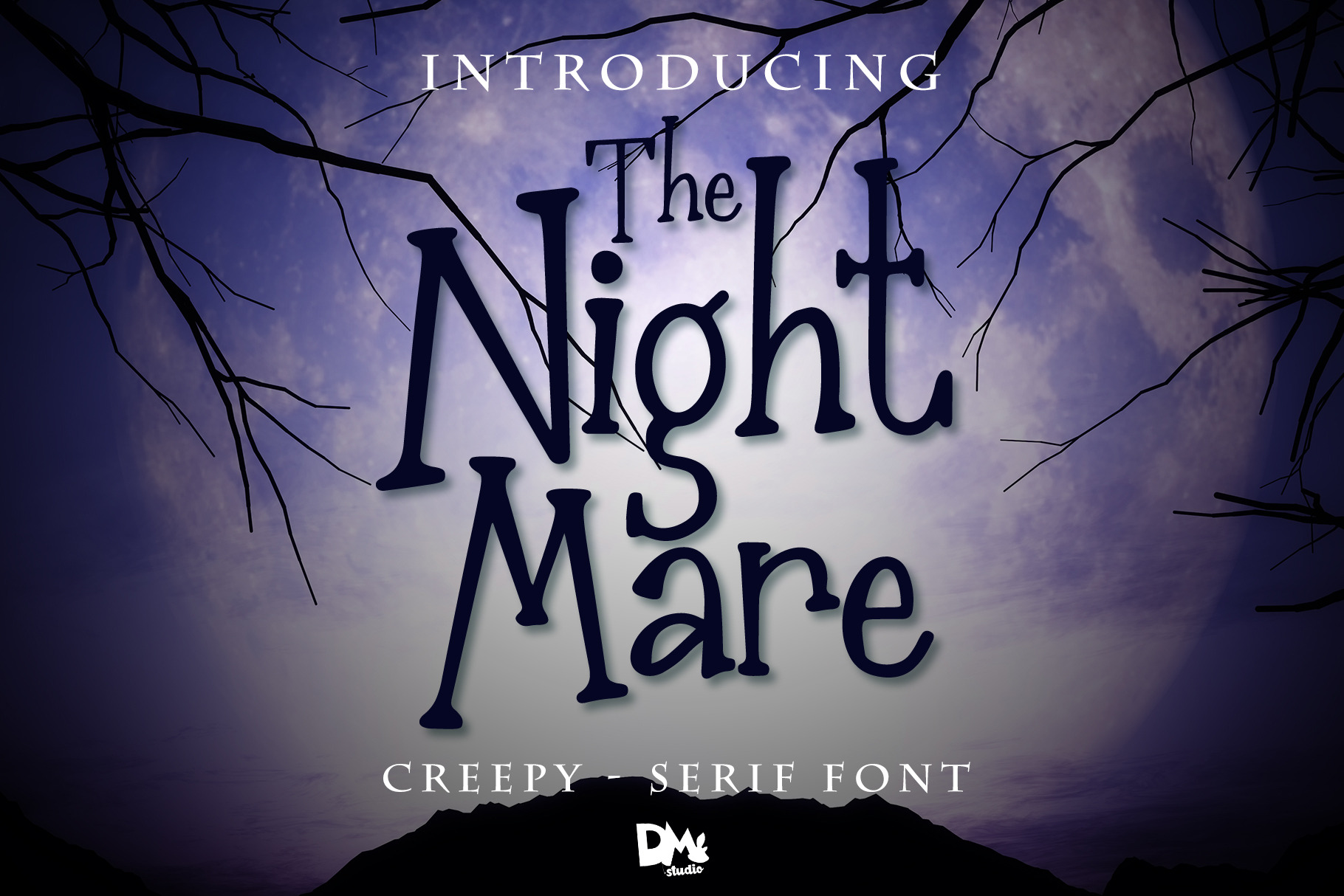
The Nightmare - Creepy Serif Font
The Nightmare - Creepy Serif Font Great choice for any display project,Halloween card, t-shirt,pillow,crafting,and much more!
The Nightmare Features :
- Numeric